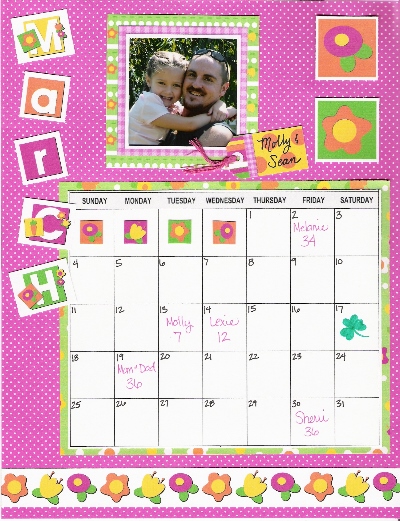
There
is nothing quite like the sinking feeling when you realize
an important date has been forgotten – a dear friend's
birthday, an anniversary or other special occasion. I have
my pocket sized calendar that goes with my everywhere for
scheduling, meetings, appointments, etc. but I like to
have something hanging on the wall too. And the wall calendar,
for me, is a perfect place to remember all of those special
days.
Personalized calendars with photos and have been around
for years and everyone has their own unique take on them.
They can be as easy or simple to create as you make them,
and around the holidays, it seems like there is always
a mad dash to get them completed to give as gifts to start
the new year. But who says a calendar has to start in January?
If you are making the calendar it can begin with any month
you choose, which opens up a whole world of possibilities.
Give grandparents a photo calendar of their posterity
on their anniversary or give a friend a calendar full of
memories of your friendship on her birthday. Create a calendar
for any occasion for anyone who is special to you. Check
out this month's creative corner for my own take on calendar
layouts with Lettering
Delights – and save the date!
Using the Creative
Delights Companion you can print all of the pieces needed to create a fun
scrapbook layout, or in this case, calendar. This March
calendar features the alphabet and Journaling Delight Seasonal – Spring from the new Seasonal
Bundle.
- Open the Creative Delights Companion and select an alphabet
design. Type the month and place it on the Layout page.
Many Lettering
Delights alphabets include embellished upper-case
letters and more simply designed lower-case letters. I
mixed and matched for variety and also, since I know I
would be cutting out each letter individually, placed a
space between the letters to create some extra cutting
room.
- Select the matching Journaling
Delight, select an image
you plan to include on the calendar, place it on the layout
page and adjust the size according to your layout space.
Repeat this process until you have all of the photo boxes,
clip art images and borders you will need. If you fill
up your layout page before you have everything you need,
simply print the page and then start fresh with a new layout
page. Be sure to leave yourself enough room between images
for trimming.
- Don't forget about Paper
Packs and Tags. Including these
in your layout add more layers of creativity. Tag sheets
are easy to use downloadable .pdf files and print easily,
giving you many sizes and shapes of tags. Paper Packs are
perfect for digital scrapbooking but can be printed in
small sizes and used as accents for paper layouts. Open
the file for the paper design(s) you want, click print
and follow the step by step instructions, printing the
'paper' in largest size available.
- Once you have all the pieces,
the rest is up to you. Create a layout that will fit your
finished size requirements and include all of the important
information you need to remember. The calendar template